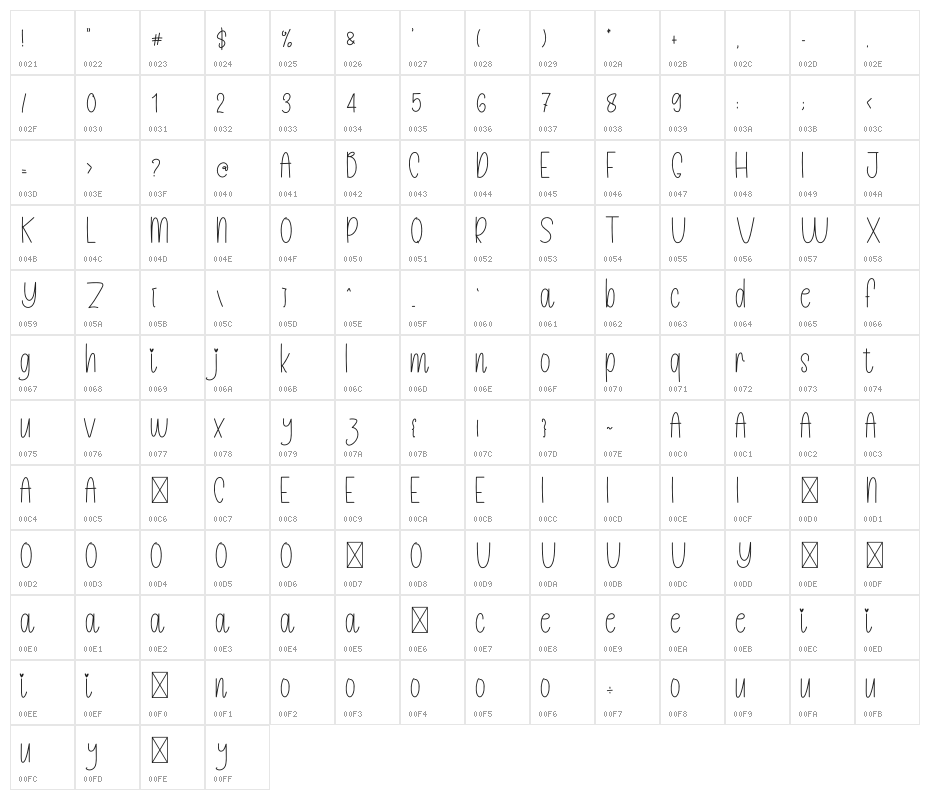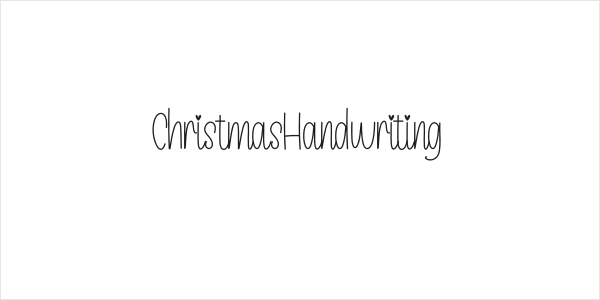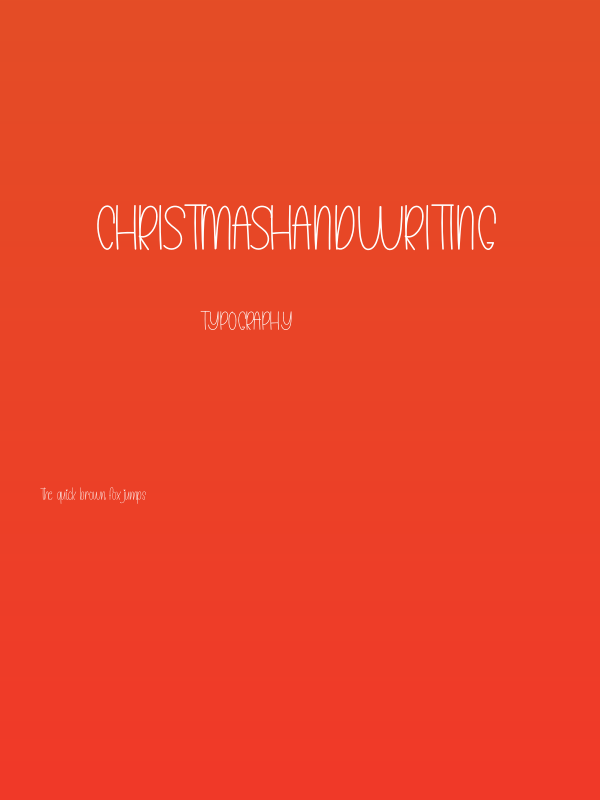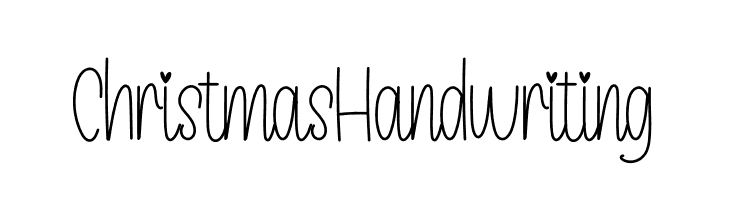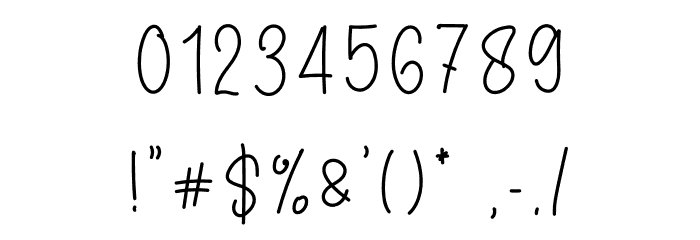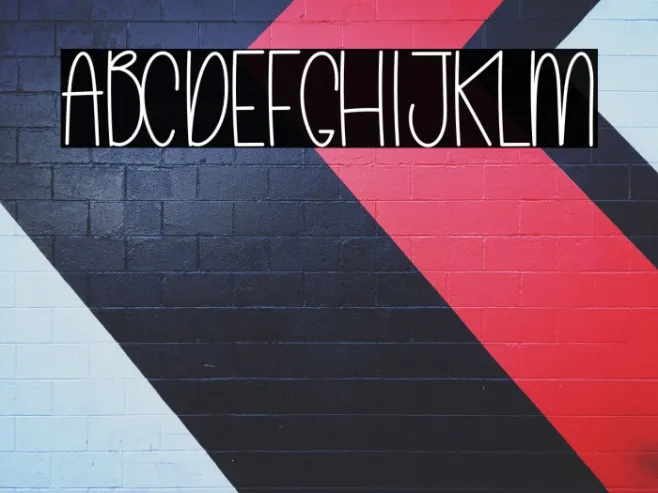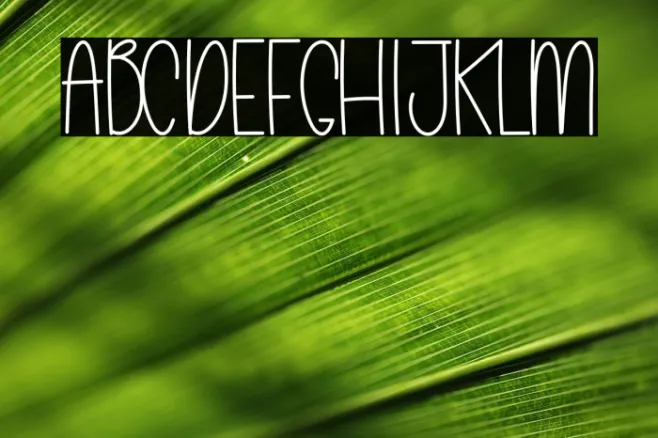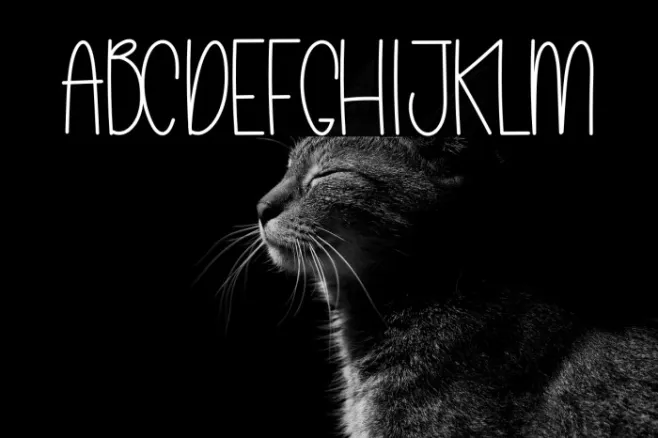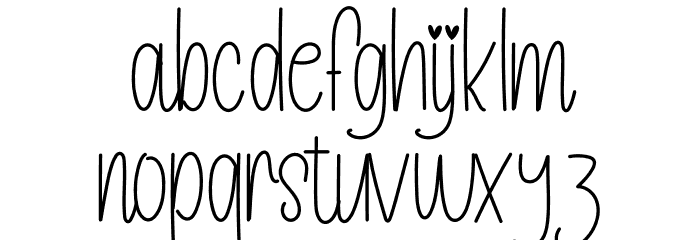
ChristmasHandwriting Font
ChristmasHandwriting Description
A playful, handwritten font with tall, narrow letters and a whimsical style.
| Overall Style | Whimsical |
| Use Case | Greeting cards, Invitations |
| Proposed Projects | Greeting cards, invitations, playful branding. |